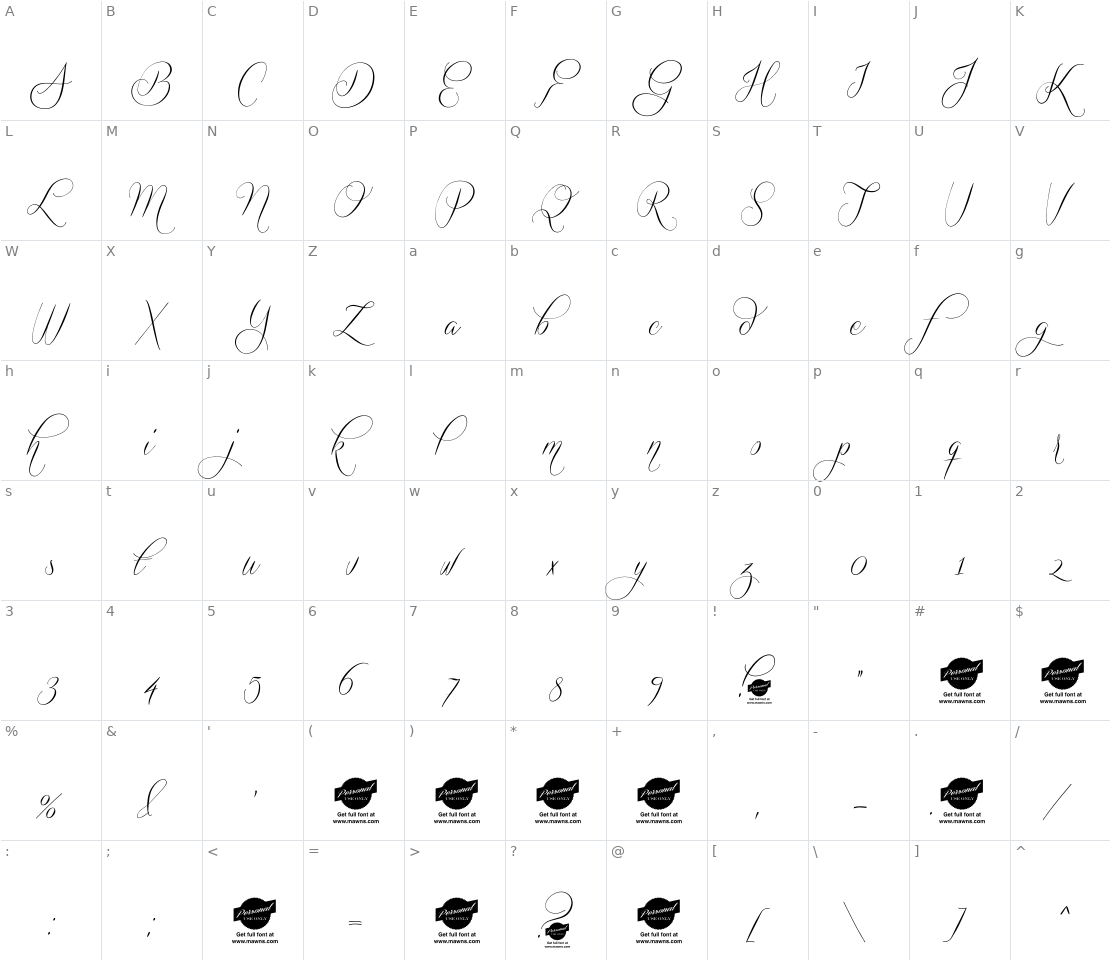
Quickier
Quickier is a delicate calligraphic script from Måns Grebäck with sweeping flourishes and ornate letterforms that feel like the work of a skilled hand with a pointed nib. The thin strokes and generous swashes give it a refined, luxurious quality, making it a natural choice for wedding invitations, formal stationery, and high-end branding where elegance needs to feel effortless rather than stiff.